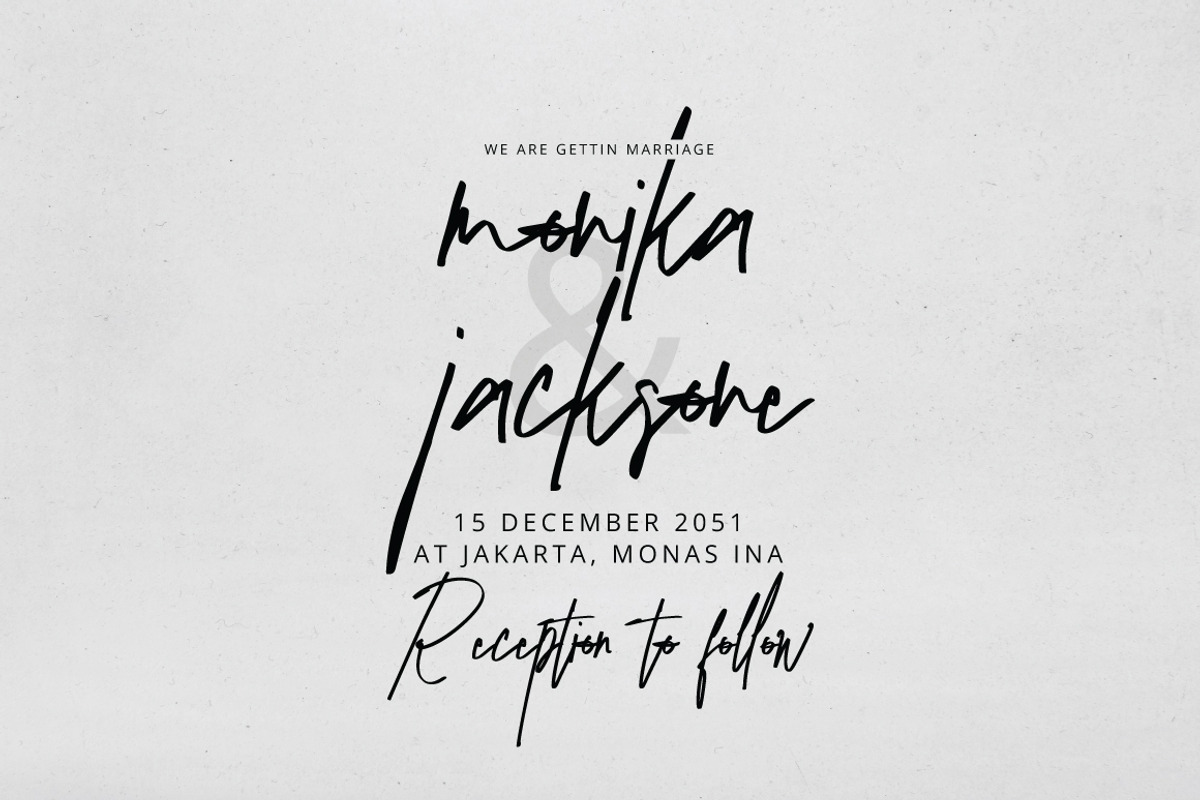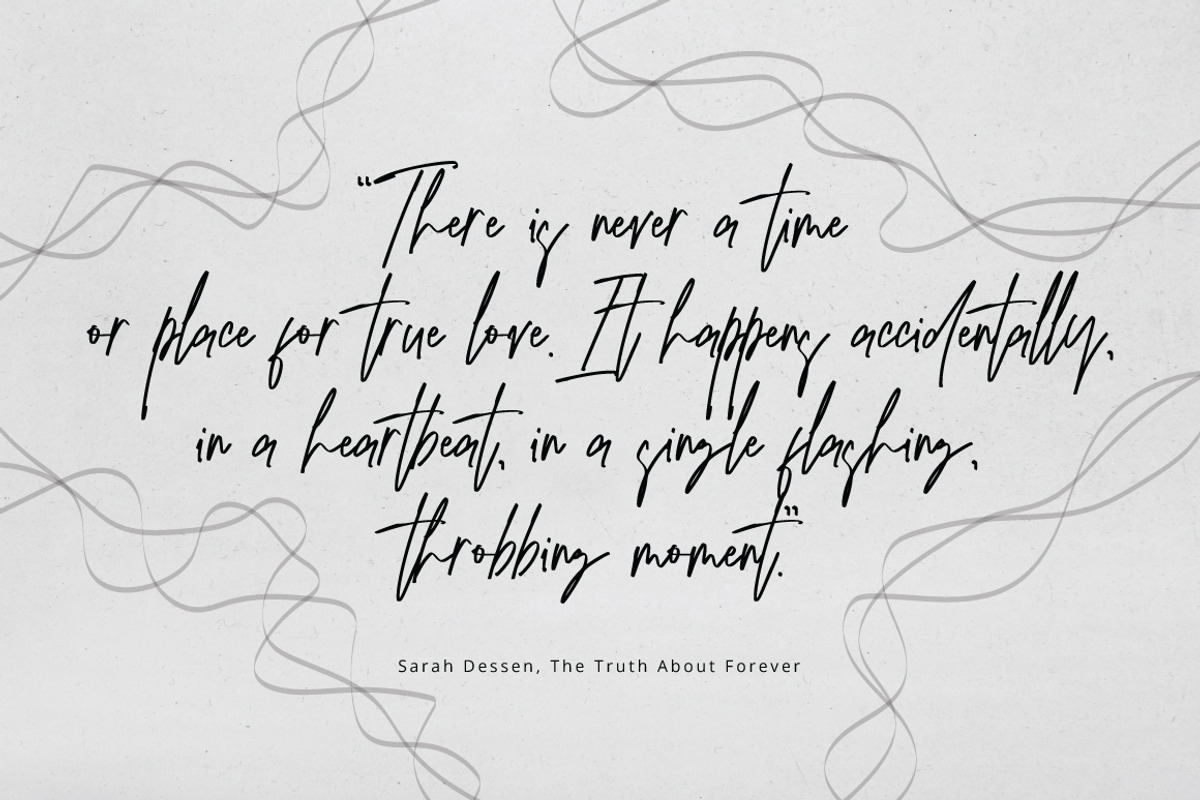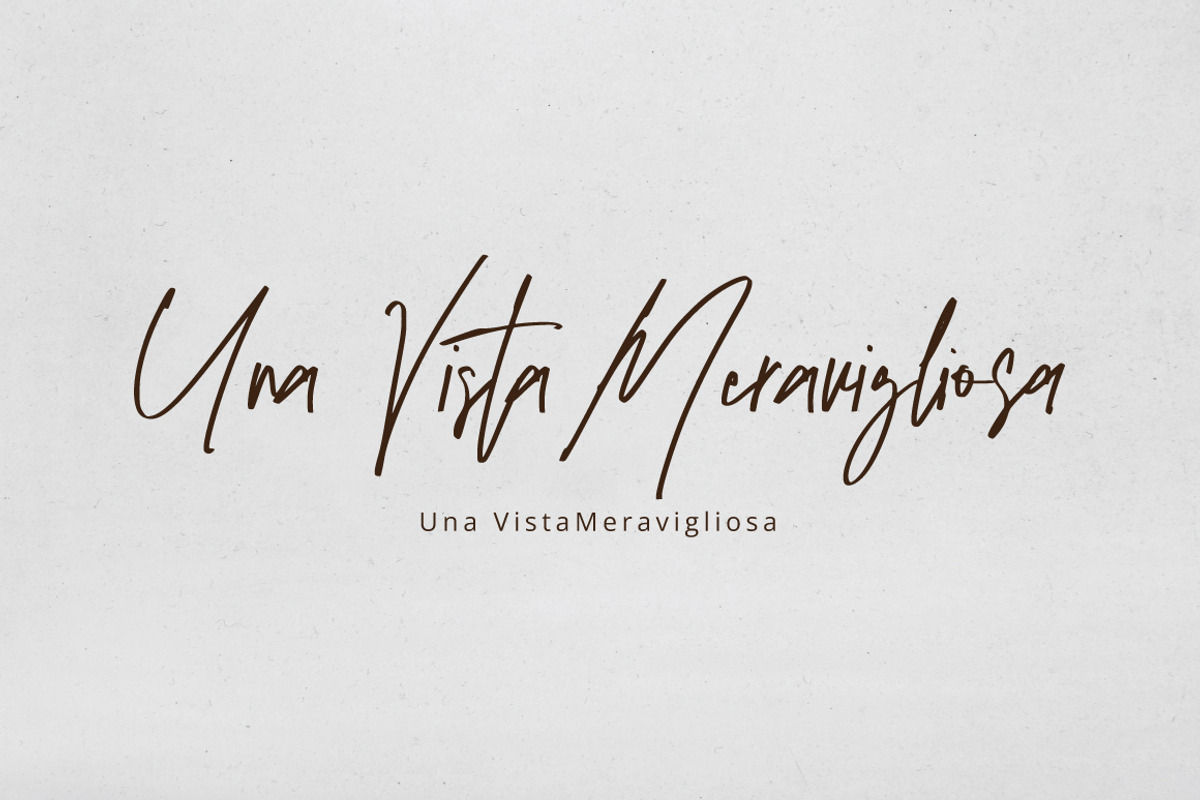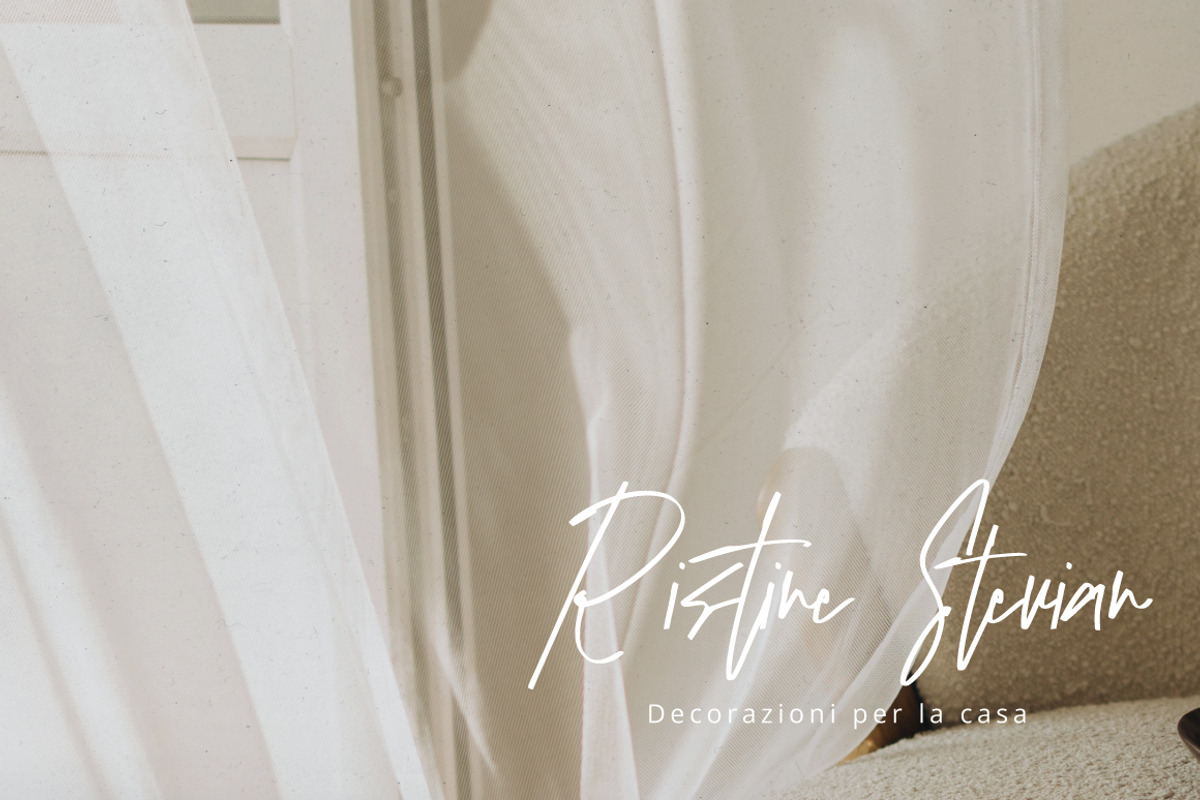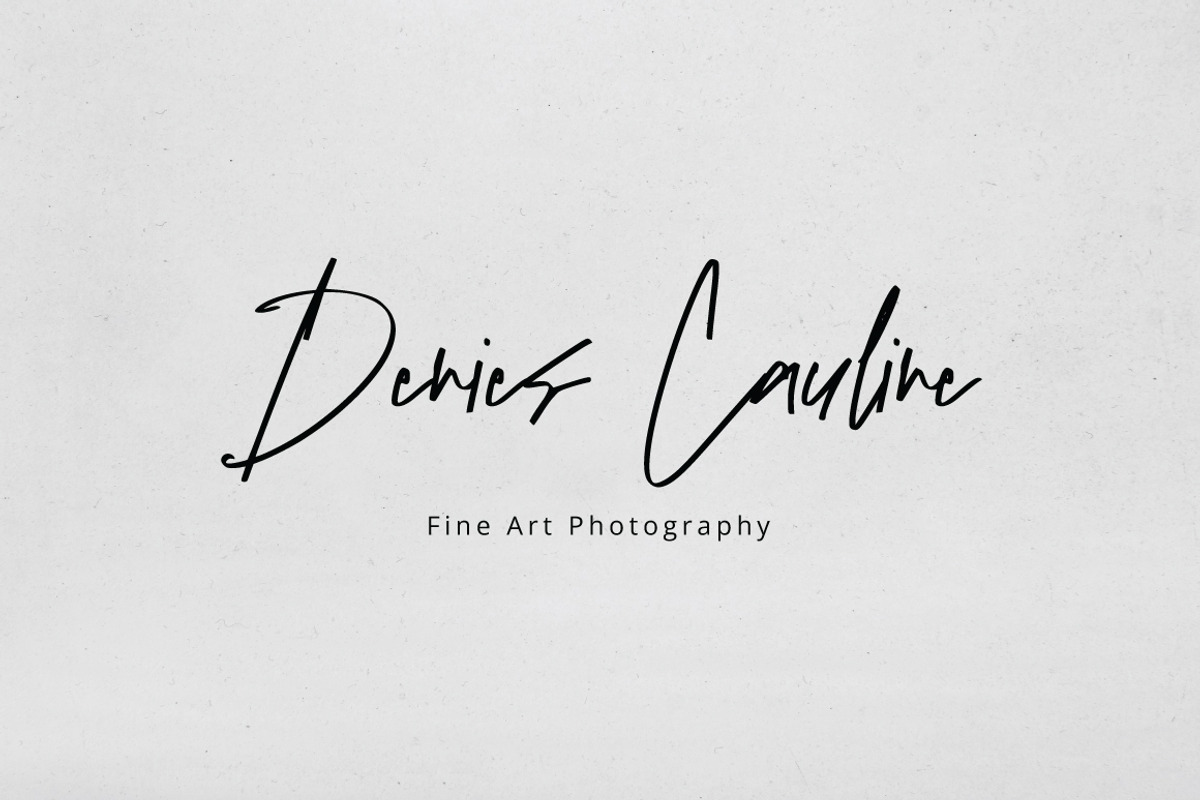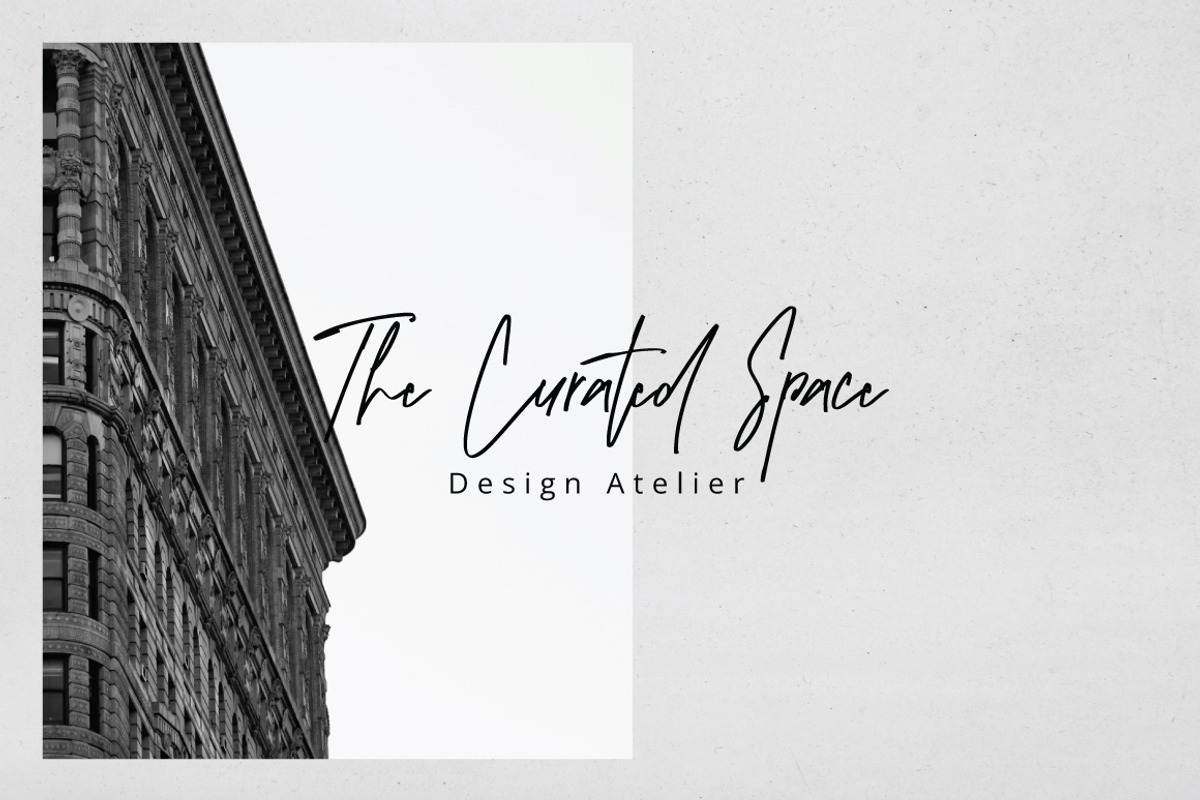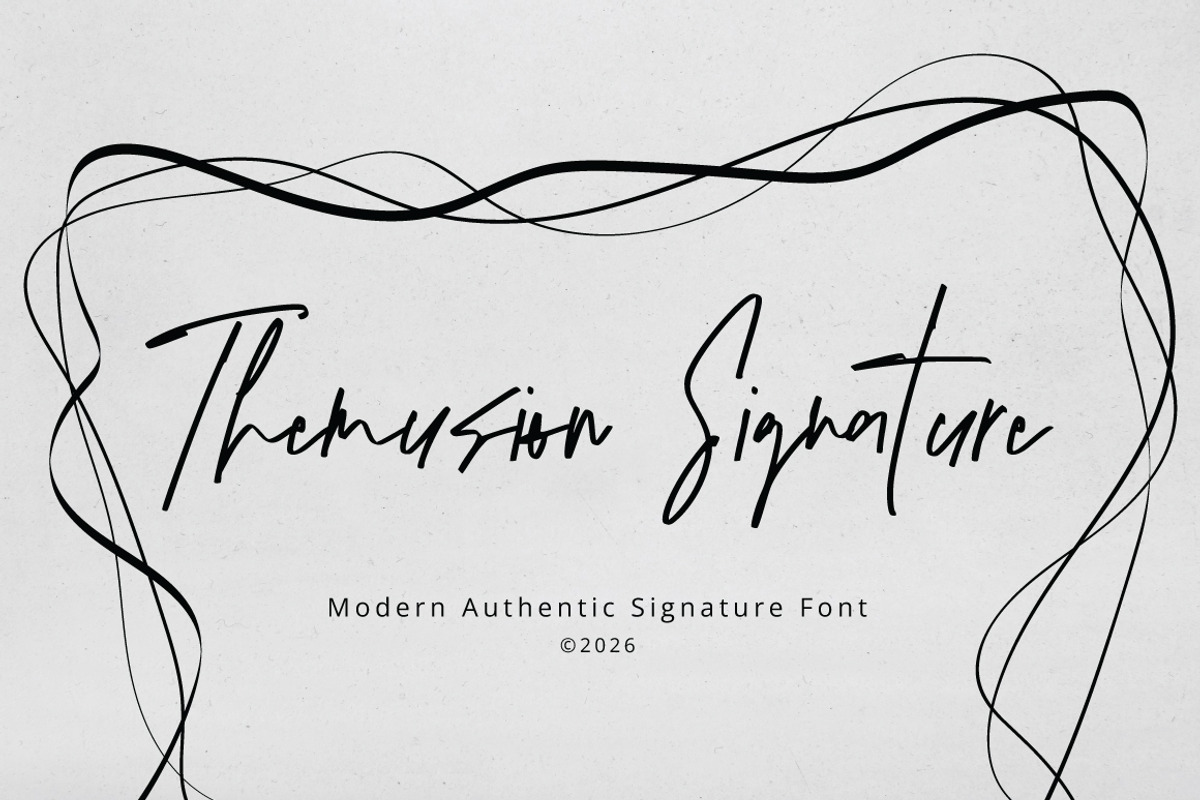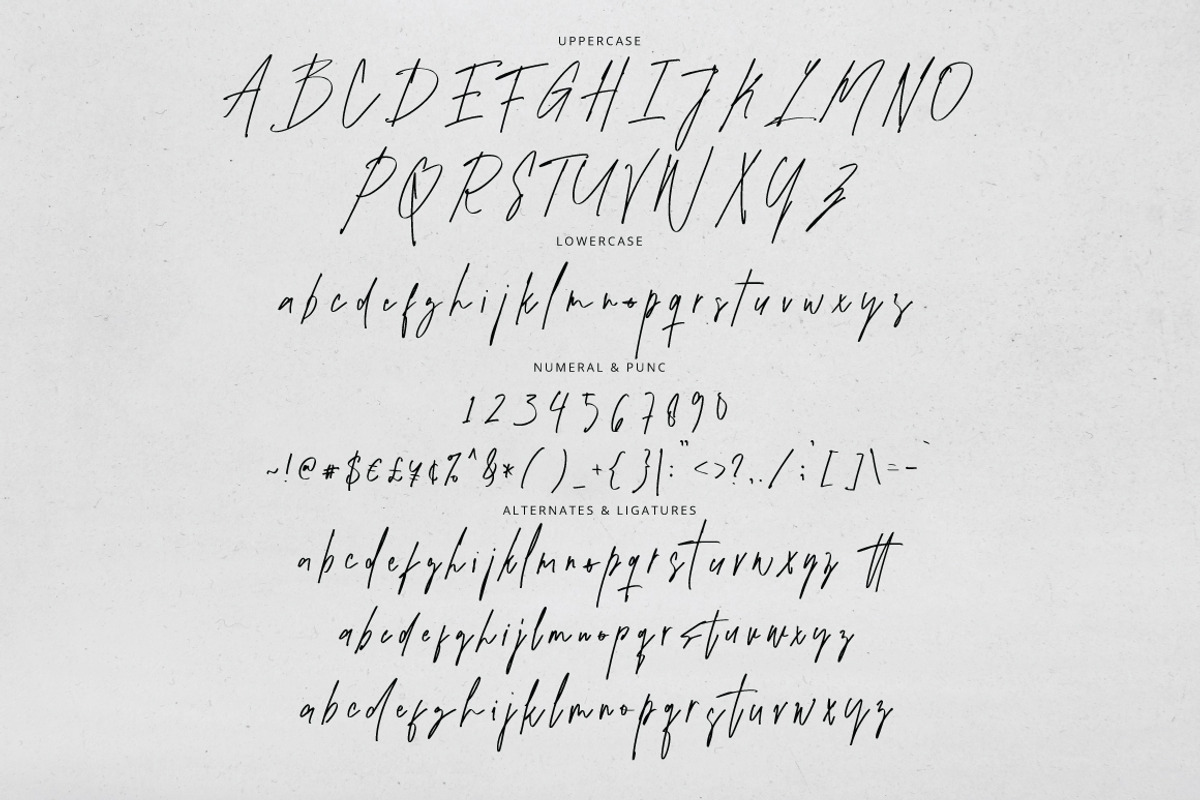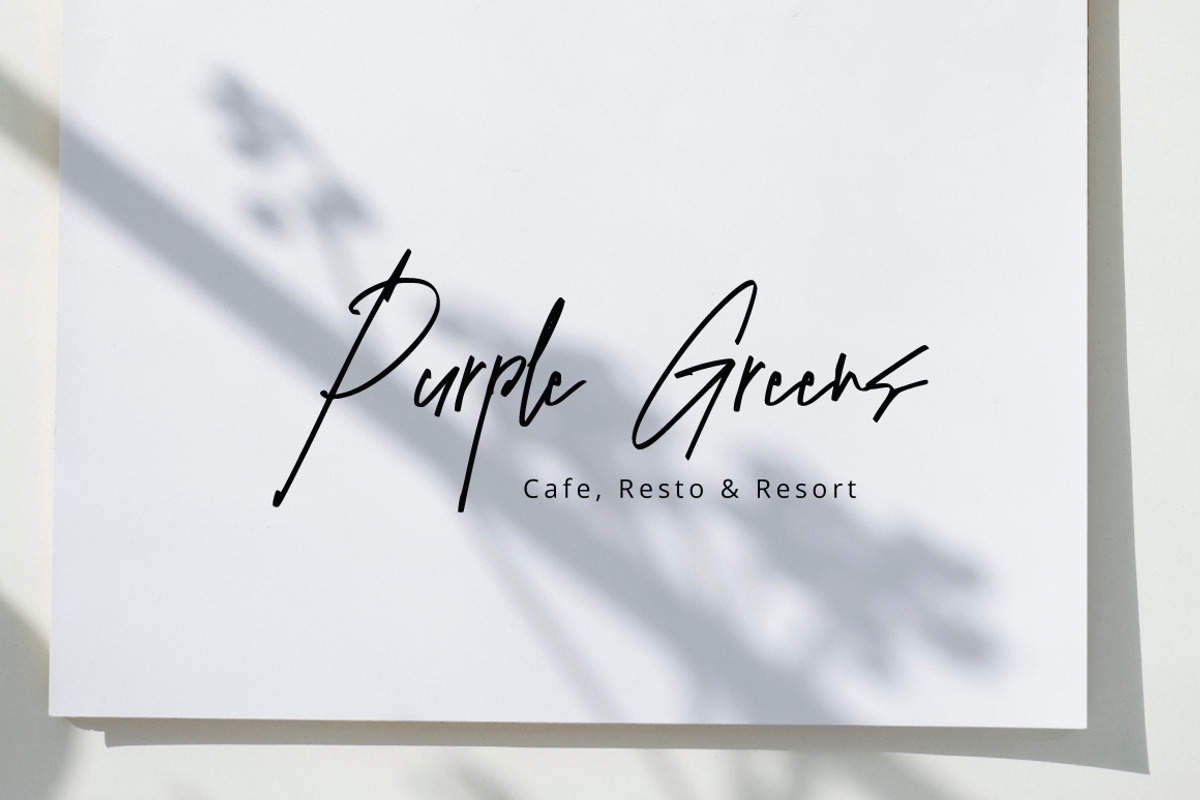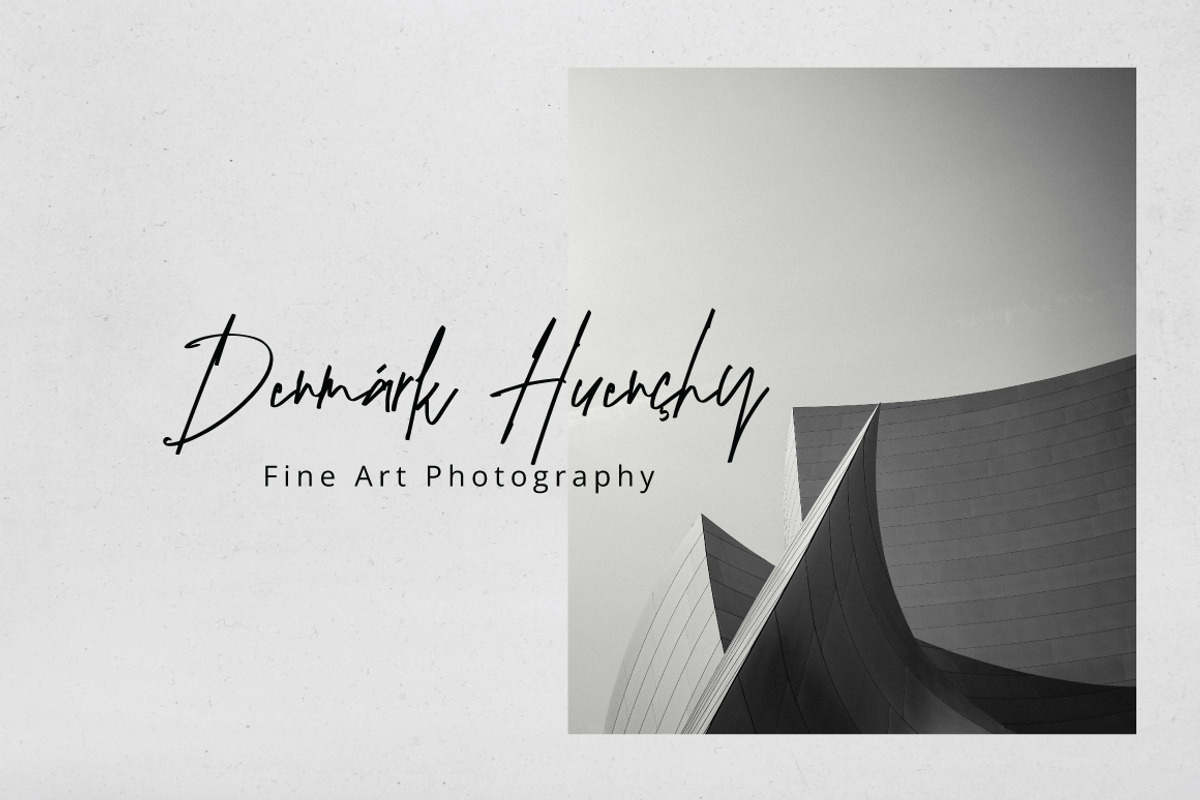
Themusion - Authentic Signature
Themusion Signature – Modern Authentic Signature Font
Bring a touch of effortless sophistication to your work with Themusion Signature, a sleek script designed to reflect genuine, modern handwriting. Featuring clean mono-line strokes, natural flows, and expressively drawn letterforms, this font captures the raw, candid feel of a real pen signature.
Themusion Signature is ideal for high-end logo design, luxury visual identities, lifestyle packaging, editorial headers, and personal watermarks. Its minimalism allows it to pair seamlessly with both bold sans-serifs and classic serif fonts.
Logos & Personal Branding
Beauty Branding
Wedding Invitations
Social Media Content
Photography Watermarks
Quotes & Editorial Design
Product Labels & Luxury Branding
Themusion Signature was created for designers, business owners, and creators who want to create a classy and memorable visual identity.